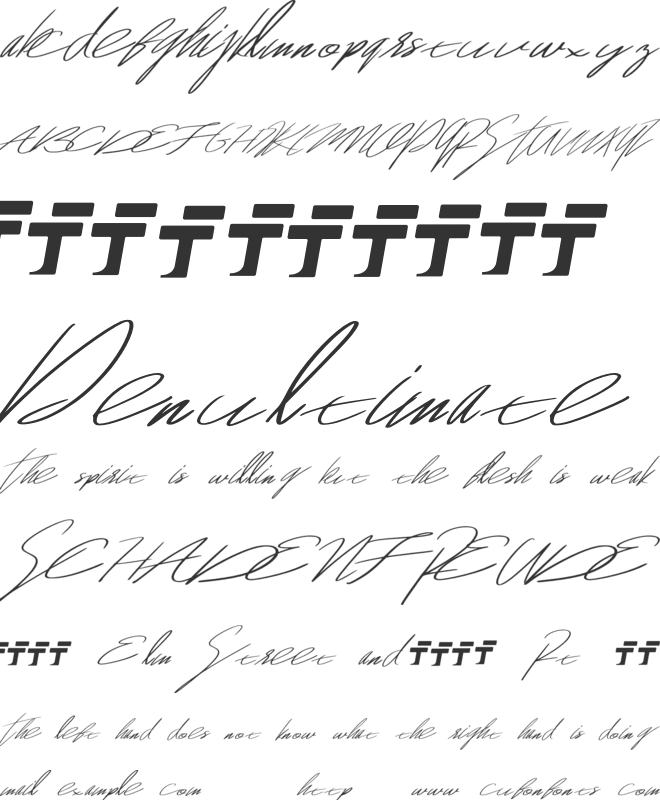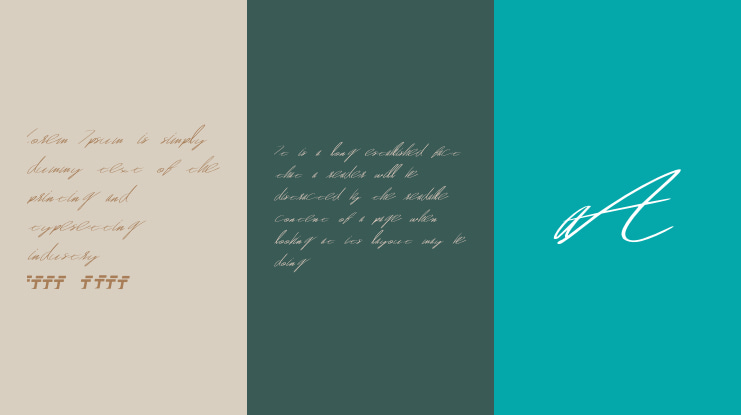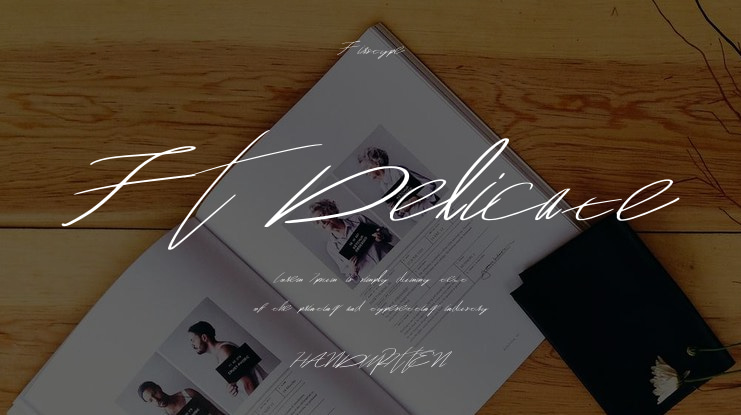
FT Delicate Font
FT Delicate: The Epitome of Elegance
FT Delicate is a beautifully crafted script font that exudes elegance and sophistication. Designed with graceful strokes and fluid lines, this typeface captures the essence of refined style, making it an excellent choice for a variety of applications.
Elegant Design: FT Delicate’s elegant curves and intricate details make it perfect for creating a sophisticated and timeless look.
Versatile Usage: Ideal for signatures, wedding invitations, and as a complementary font in design projects that require a touch of class.
Refined Aesthetic: The smooth and delicate strokes of FT Delicate add a sense of luxury and grace to any project.
FT Delicate is your go-to font for adding an elegant touch to your designs. Whether you're crafting a beautiful wedding invitation, adding a stylish signature to your documents, or looking for the perfect complementary font to enhance your design, FT Delicate delivers the charm and sophistication you need. Embrace the elegance of FT Delicate and elevate your projects to new heights.